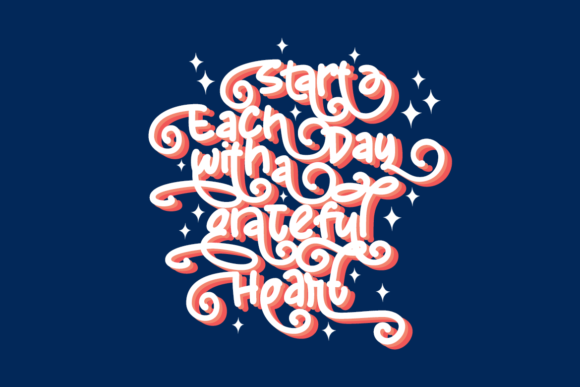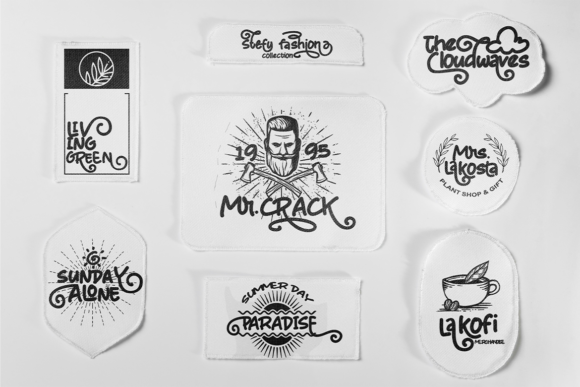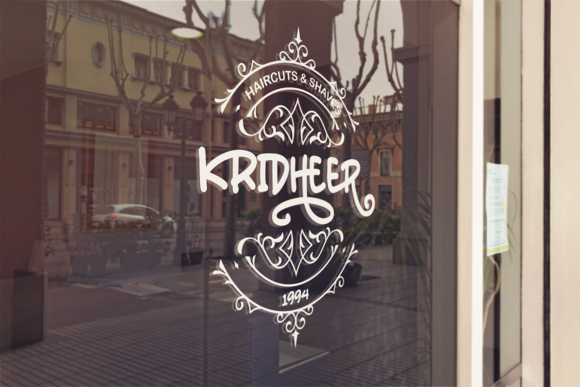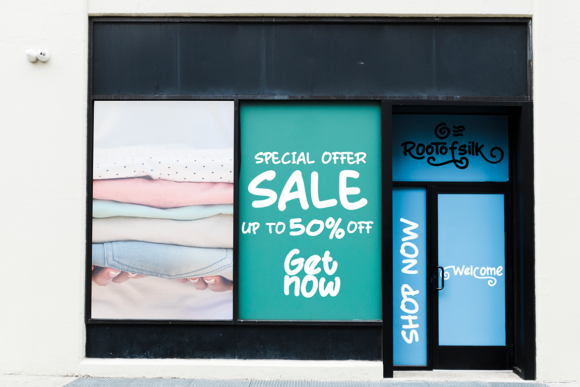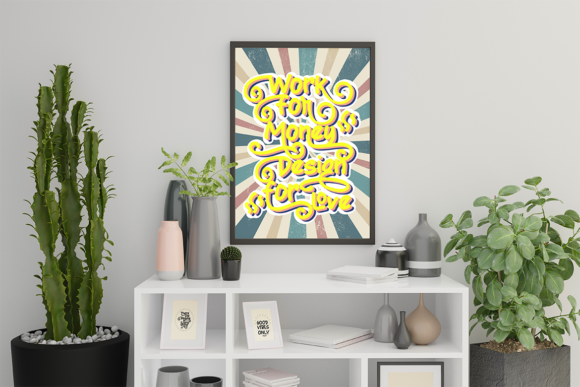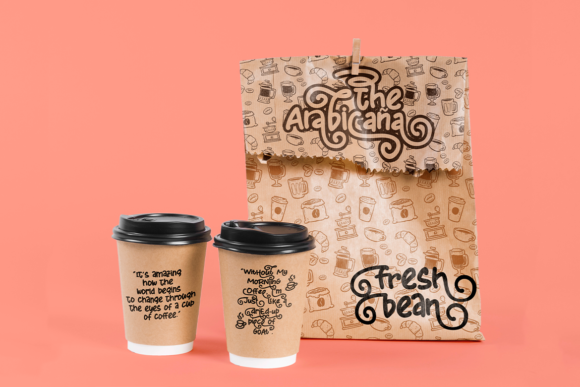
Drackorie Font: Elevate Your Designs with Elegance and Class
In the world of typography, a font can make or break the aesthetic of a design. For those seeking a touch of sophistication and refinement, the Drackorie font is an excellent choice. This chic and distinct handwritten font is specifically crafted for designers and crafters who want to add a beautiful and refreshing look to their creations.
What is Drackorie Font?
Drackorie is a carefully crafted handwritten font that exudes elegance and class. Its unique and stylish design makes it perfect for a wide range of applications, from branding and advertising to packaging and digital media. Whether you’re a professional designer or a crafty DIY enthusiast, Drackorie is an excellent addition to your typography arsenal.
Key Features of Drackorie Font
- PUA Encoding: Drackorie is PUA (Private Use Area) encoded, which means you can access all glyphs and swashes with ease. This feature allows for greater flexibility and creativity in your designs.
- Handwritten Style: The font boasts a beautiful, handwritten style that adds a personal touch to your designs.
- Elegant and Classy: Drackorie’s elegant and classy design makes it perfect for high-end branding, luxury packaging, and sophisticated digital media.
Benefits of Using Drackorie Font
So, why choose Drackorie for your design projects? Here are just a few benefits of using this exceptional font:
- Stand Out from the Crowd: With Drackorie, you can create unique and eye-catching designs that set you apart from the competition.
- Enhance Your Brand: The font’s elegant and classy design makes it perfect for branding and advertising, helping you to establish a sophisticated and professional image.
- Easy to Use: Drackorie is PUA encoded, making it easy to access all glyphs and swashes, even for those without extensive design experience.
Use Cases for Drackorie Font
Drackorie is a versatile font that can be used in a variety of design applications, including:
- Branding and Advertising: Use Drackorie to create sophisticated logos, business cards, and ad campaigns.
- Packaging Design: Add a touch of elegance to your product packaging with this beautiful font.
- Digital Media: Use Drackorie in your website designs, social media graphics, and email marketing campaigns to create a cohesive and professional look.
- Crafting and DIY Projects: Drackorie is also perfect for crafty DIY enthusiasts, suitable for use in handmade cards, scrapbooking, and other paper crafts.
Tips for Getting the Most out of Drackorie Font
To maximize the impact of Drackorie in your designs, keep the following tips in mind:
- Experiment with Swashes: Take advantage of Drackorie’s PUA encoding to experiment with different swashes and glyphs, adding a unique touch to your designs.
- Pair with Other Fonts: Combine Drackorie with other fonts to create a striking contrast and add visual interest to your designs.
- Use in Combination with Images: Pair Drackorie with high-quality images to create a visually appealing and engaging design.
In conclusion, Drackorie is a chic and distinct handwritten font that exudes elegance and class. Its PUA encoding, elegant design, and versatility make it an excellent choice for designers and crafters seeking to elevate their designs. Whether you’re working on a branding project, packaging design, or DIY craft, Drackorie is sure to add a touch of sophistication and refinement.